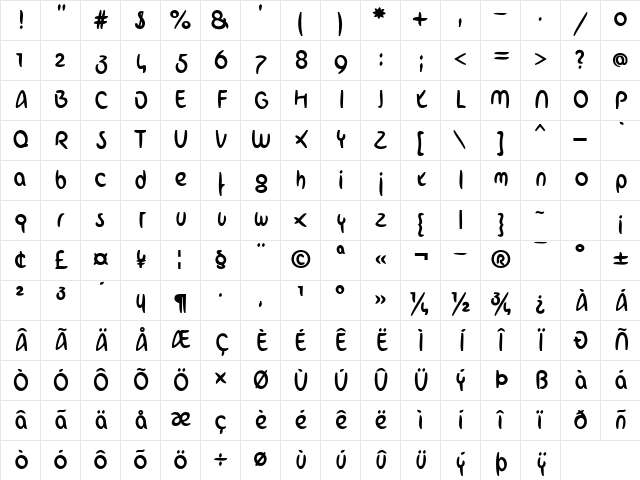
Complete ArabStroke LT Heavy Regular glyph index. Displaying only characters natively supported by ArabStroke LT Heavy Regular font.
ArabStroke LT Heavy is a composed and adaptable typeface that performs quietly and consistently across a wide range of design contexts. Its slender proportions lend an understated elegance to any composition.